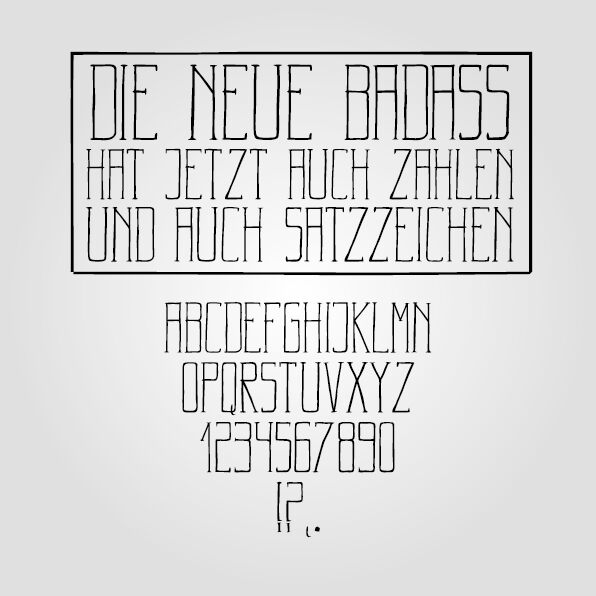
Badass Typography by Robin Röcker is a free decorative display font with extremely tall, narrow letters and a wiry hand-drawn finish. Uneven strokes shift in width, and sparse forms mix straight uprights with hooked curves. The result feels lean, tense, and slightly unruly.
As a theatrical title treatment, the lettering can turn poster copy into part of the image rather than simple captioning. Its elongated silhouette also suits music packaging, fashion graphics, and merchandise with an underground edge. For independent labels or alternative venues, it can establish a raw product identity shaped by lanky proportions and deliberate irregularity.